Land Rover Font: A Symbol of Timeless Elegance and Adventure
Land Rover Font
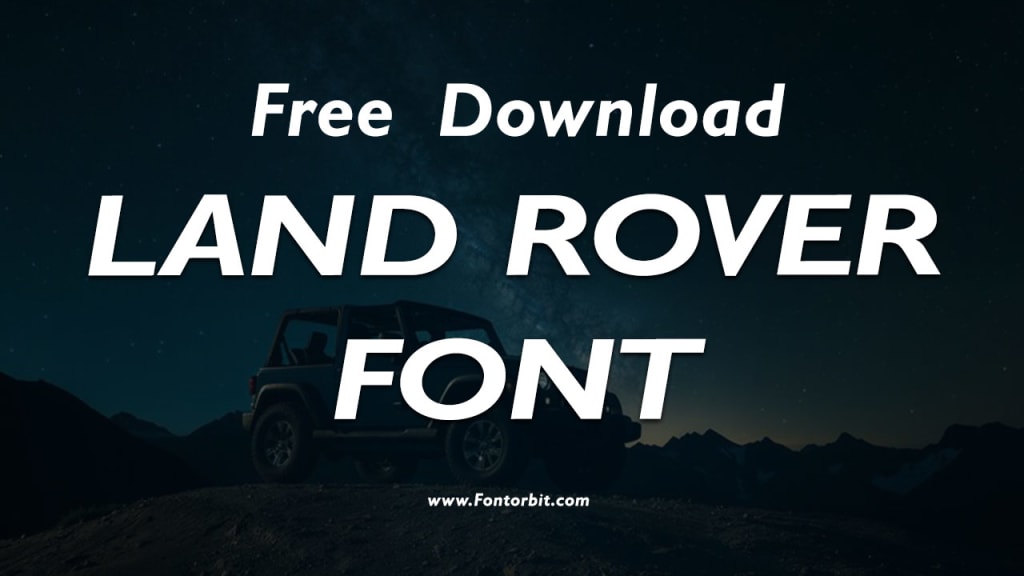
The Land Rover brand is synonymous with rugged luxury, off-road capability, and timeless design. But beyond its iconic vehicles, the brand's identity is deeply rooted in its typography.
The Land Rover font plays a crucial role in communicating the brand's ethos, balancing sophistication with adventure. In this article, we explore the story behind the Land Rover font, its characteristics, and its impact on the brand's image.
The Evolution of Land Rover Typography
Land Rover's branding journey began in 1948 when the first Land Rover vehicle was introduced. Over the decades, the brand has undergone numerous updates to its logo and typography to keep pace with modern design trends while retaining its heritage.
The current font used by Land Rover in its logo and branding is a bespoke typeface designed exclusively for the brand. It embodies the qualities of strength, precision, and elegance, reflecting the characteristics of Land Rover vehicles.
The font's design is minimalist and clean, aligning with contemporary design principles. Its bold, sans-serif style conveys a sense of reliability and durability, while its refined curves add a touch of sophistication. This balance makes it an ideal choice for a brand that stands at the intersection of luxury and functionality.
Key Features of the Land Rover Font
Sans-Serif Design: The font is a bold sans-serif typeface, which gives it a modern and clean appearance.
Precision and Clarity: The letters are crafted with precision, ensuring clarity and legibility in various applications, from vehicle badges to digital screens.
Timeless Appeal: The font avoids overly trendy elements, ensuring it remains relevant for years to come.
Brand Alignment: Every curve and line reflects Land Rover's brand identity, combining ruggedness with refinement.
Where Is the Land Rover Font Used?
The Land Rover font is integral to the brand's visual identity and is used across multiple platforms, including:
Vehicle Badges: The font prominently features on the badges of Land Rover vehicles, enhancing their distinctive appearance.
Marketing Materials: From brochures to advertisements, the font ensures consistency in branding.
Digital Presence: The typeface is used on the Land Rover website, apps, and social media, creating a cohesive online experience.
Signage and Merchandise: It extends to dealership signage and branded merchandise, reinforcing brand recognition.
The Impact of the Land Rover Font
Typography is a powerful tool in branding, and the Land Rover font is a testament to this fact. It not only enhances brand recognition but also evokes specific emotions and associations. The font’s boldness signifies confidence, while its refined details reflect the luxury and premium nature of Land Rover vehicles. This thoughtful design contributes to the brand's overall perception as a leader in the luxury SUV market.
Conclusion
The Land Rover font is more than just a typeface; it is a visual representation of the brand’s values and heritage. Its design captures the essence of adventure, luxury, and durability that Land Rover vehicles embody.
By maintaining a consistent and well-crafted typography, Land Rover ensures that its brand identity remains strong and memorable in a competitive market. For enthusiasts and design lovers alike, the Land Rover font is a perfect example of how typography can elevate a brand.
FAQs
1. What font does Land Rover use?
Land Rover uses a custom-designed sans-serif font exclusively created for the brand, ensuring a unique and cohesive identity.
3. Why is typography important in branding?
Typography helps communicate a brand's personality and values, making it an essential element of visual identity.
4. Has the Land Rover font changed over time?
Yes, the font has evolved along with the brand’s logo and design language to remain modern and relevant.
5. Where can I see the Land Rover font in use?
The font is visible on Land Rover vehicles, marketing materials, websites, and merchandise.
7. What makes the Land Rover font unique?
Its balance of boldness and elegance, along with its alignment with Land Rover’s brand values, makes it unique and instantly recognizable.